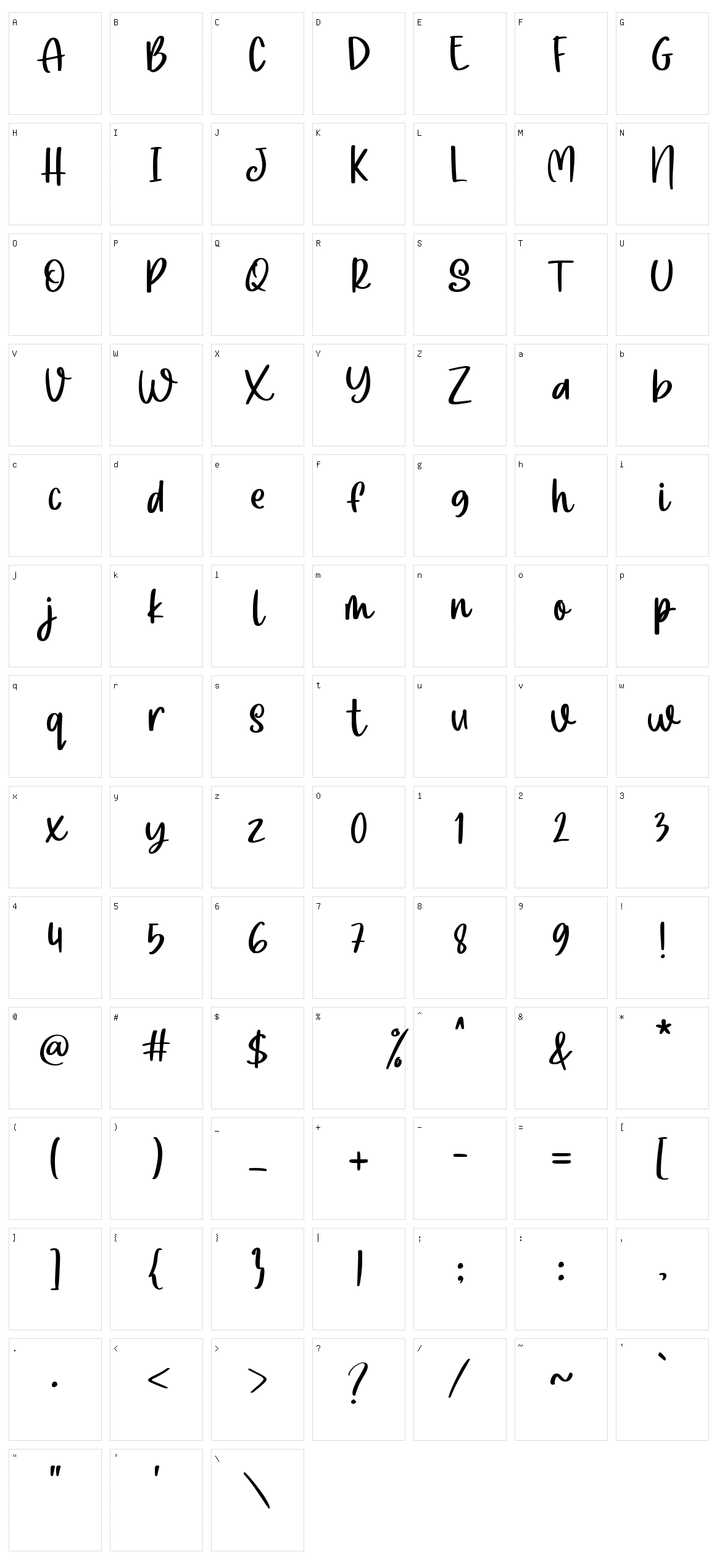
The free font Christmas Breakfast is carefully designed by Mozatype, showcasing a thoughtful balance of creativity and usability and falls under the Script font style. When you download the ZIP file, it contains only 178.93 KB of font files, making it lightweight and quick to download. Please review the license details below to understand permitted usage and distribution rights. If license information is not available, we recommend using this font for personal projects only or contacting the author directly for commercial usage permissions.